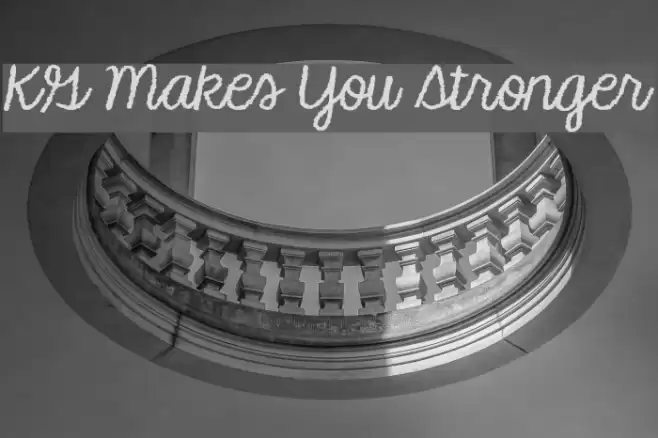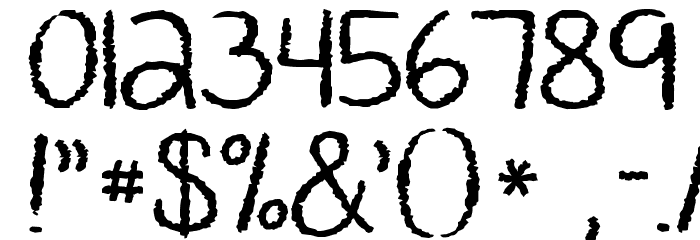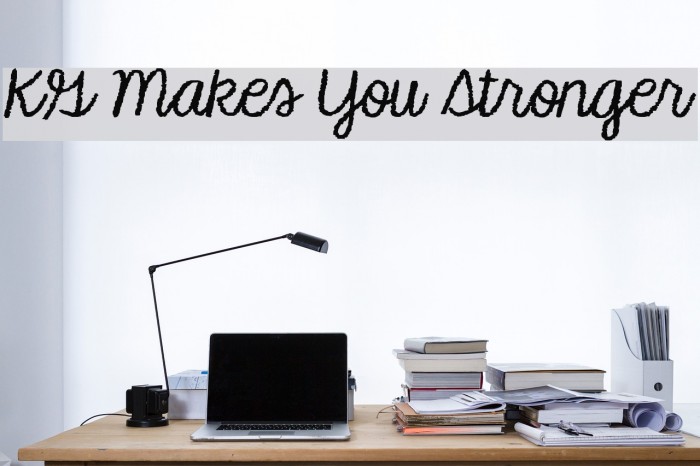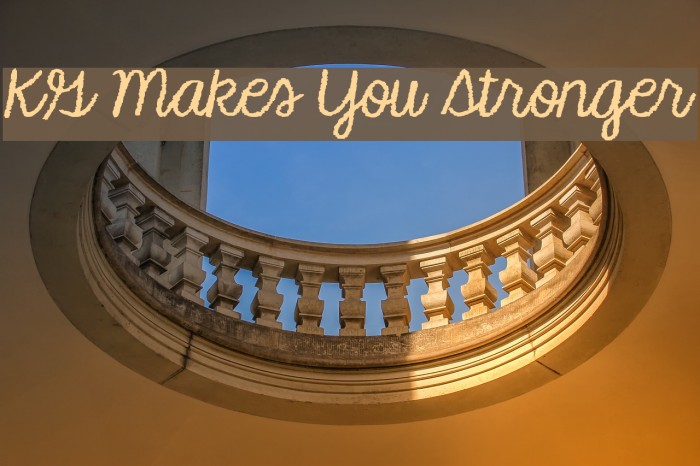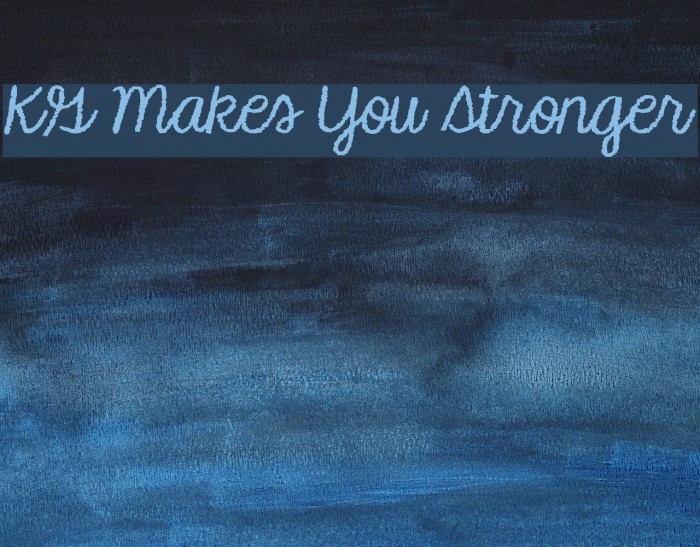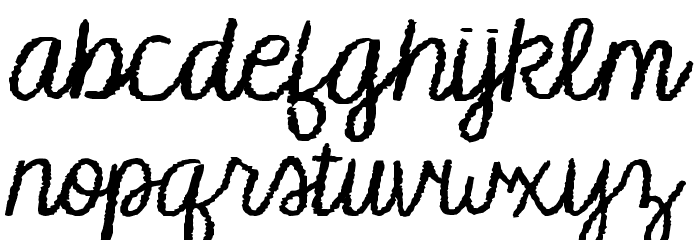
KG Makes You Stronger Font
KG Makes You Stronger Description
This font features a playful and energetic handwritten style, characterized by its fluid and connected letterforms. The strokes are slightly irregular, giving it a casual and personal touch. The uppercase and lowercase letters maintain a consistent flow, enhancing readability while preserving the handwritten aesthetic. Numbers and special characters are crafted with the same lively spirit, making them suitable for informal and creative applications. The overall appearance is dynamic and friendly, perfect for projects that require a personal and approachable feel.
A lively and playful handwritten font with fluid, connected strokes from Uncategorized fonts.
- Proposed Projects: Ideal for greeting cards, invitations, personal branding, and creative projects that require a personal touch.
- Overall Style: Casual
- Use Case: Logos, Invitations, Personal Branding